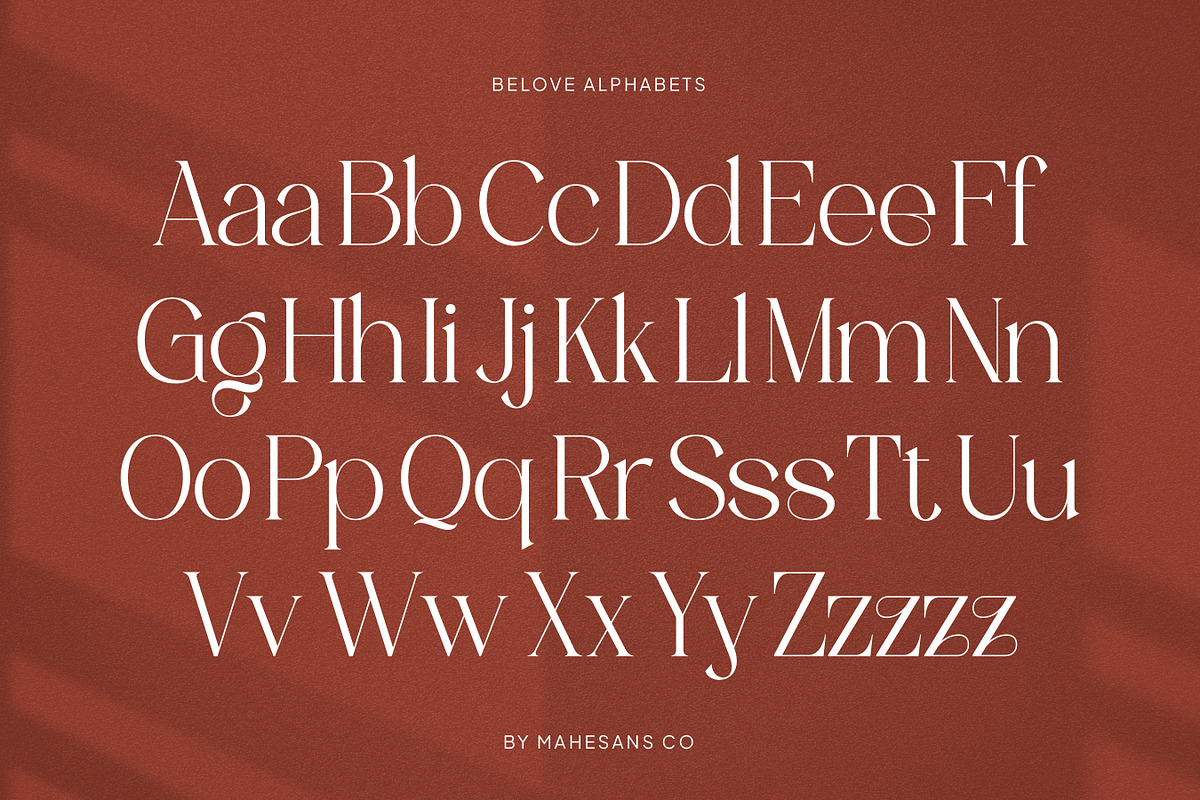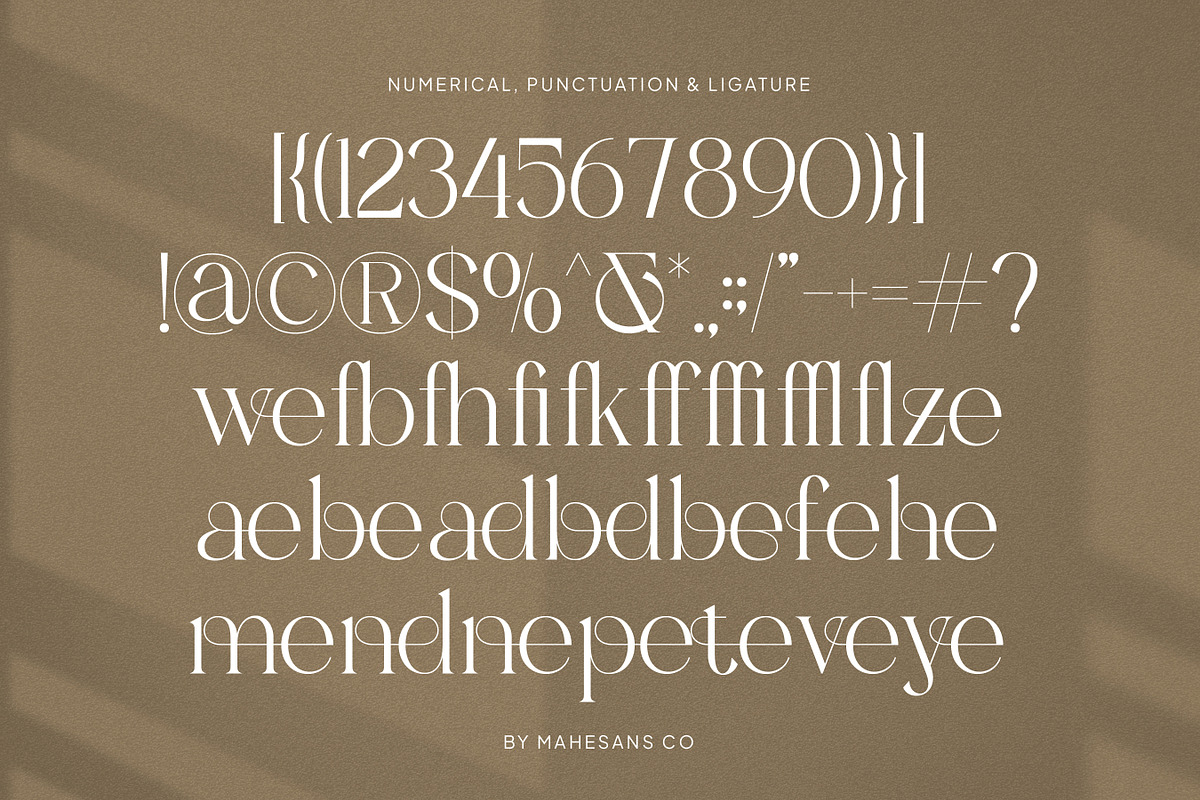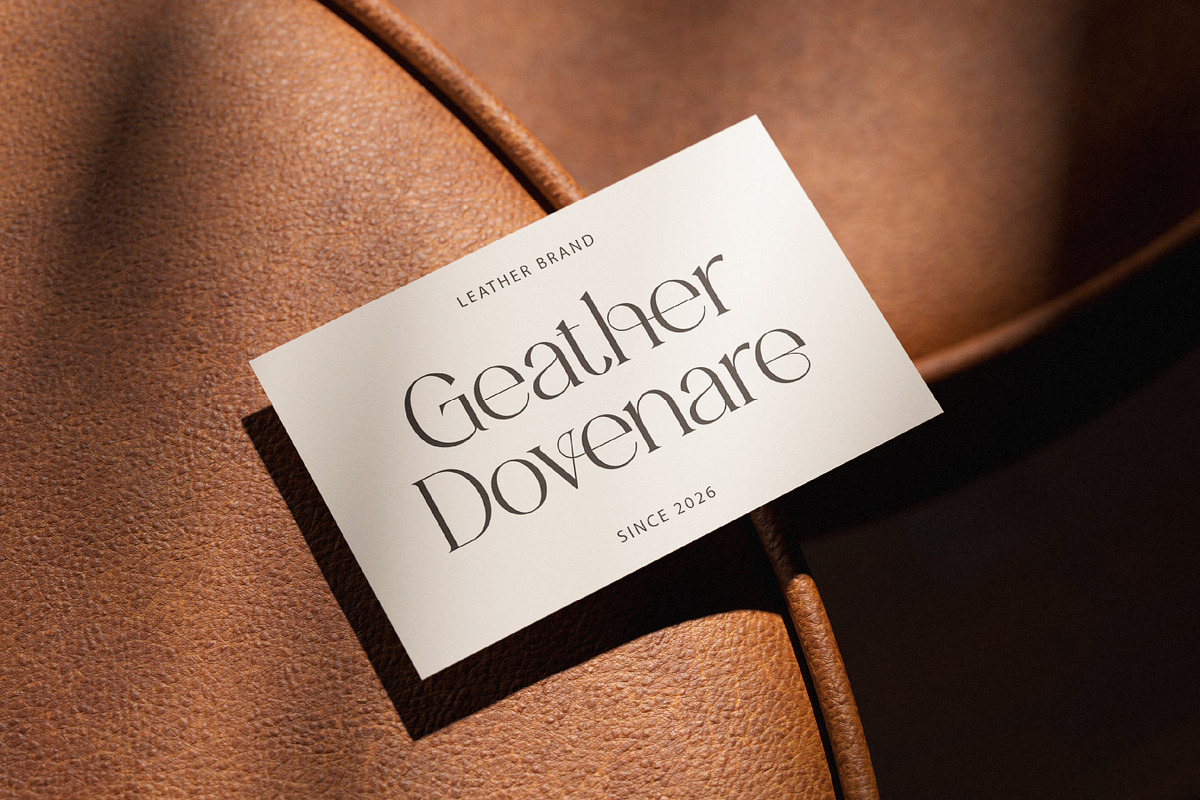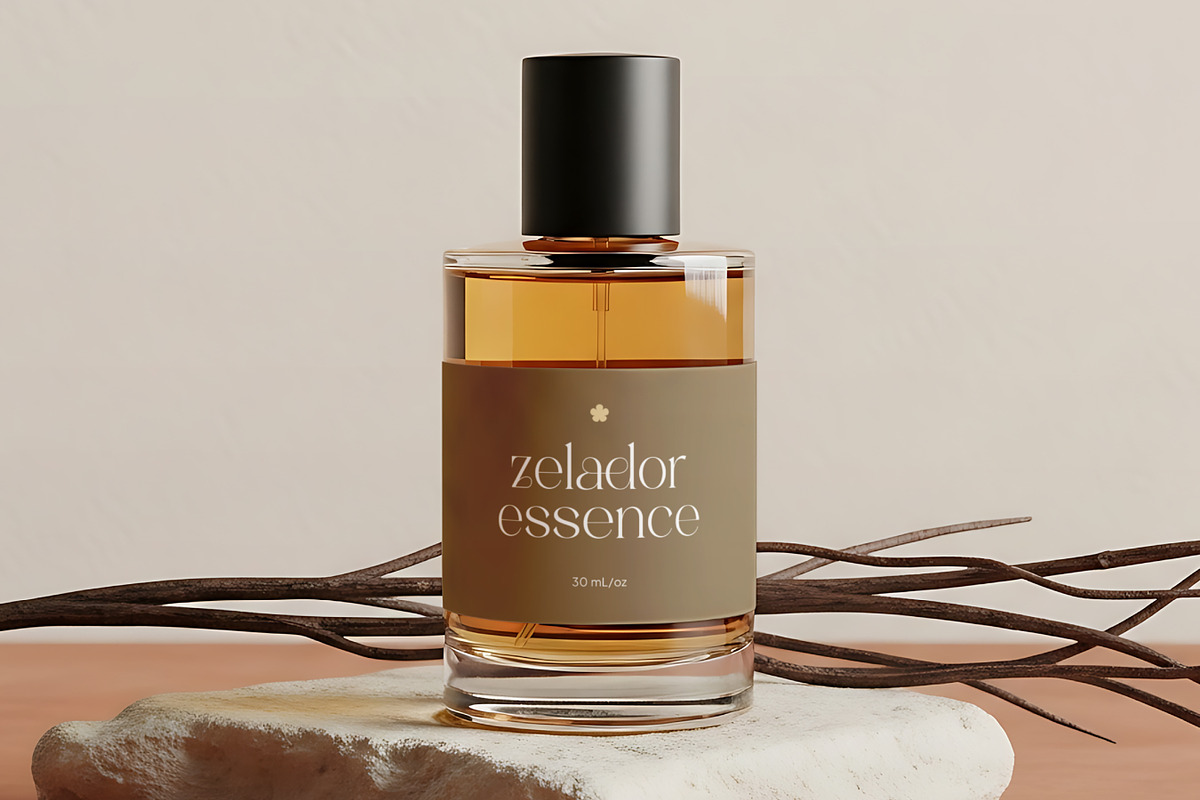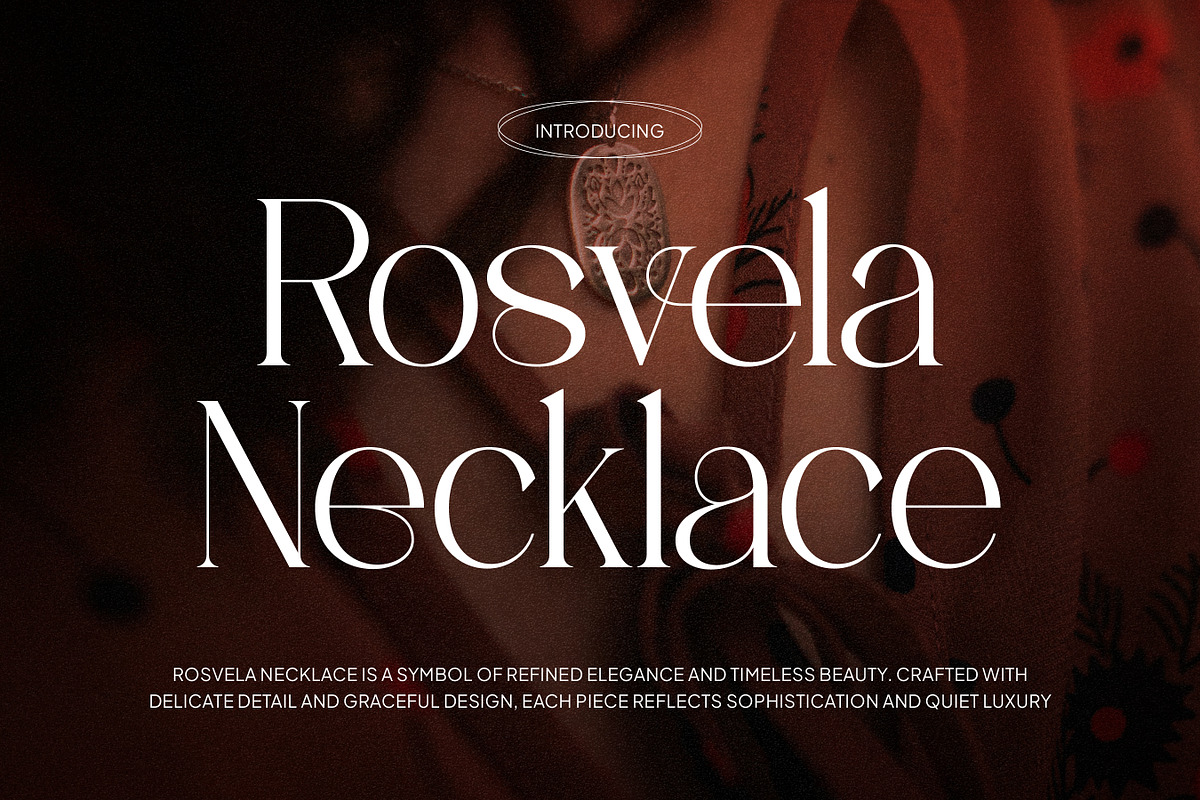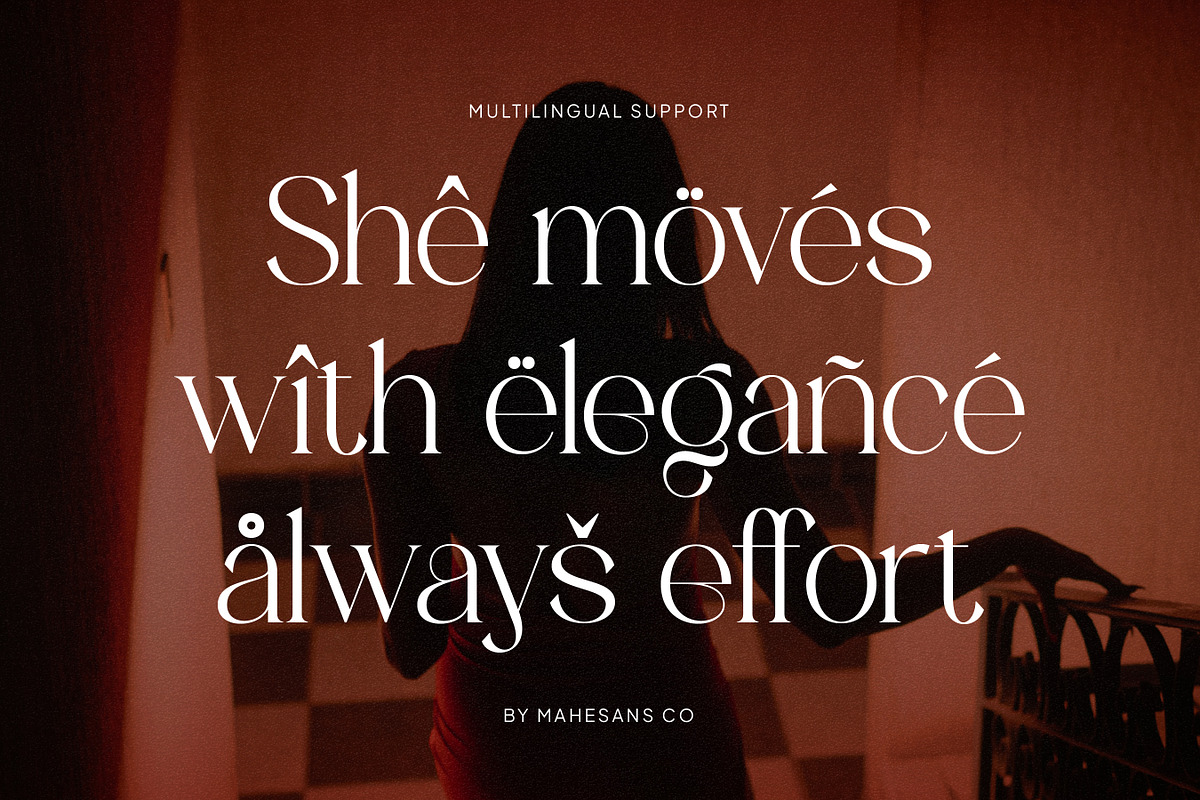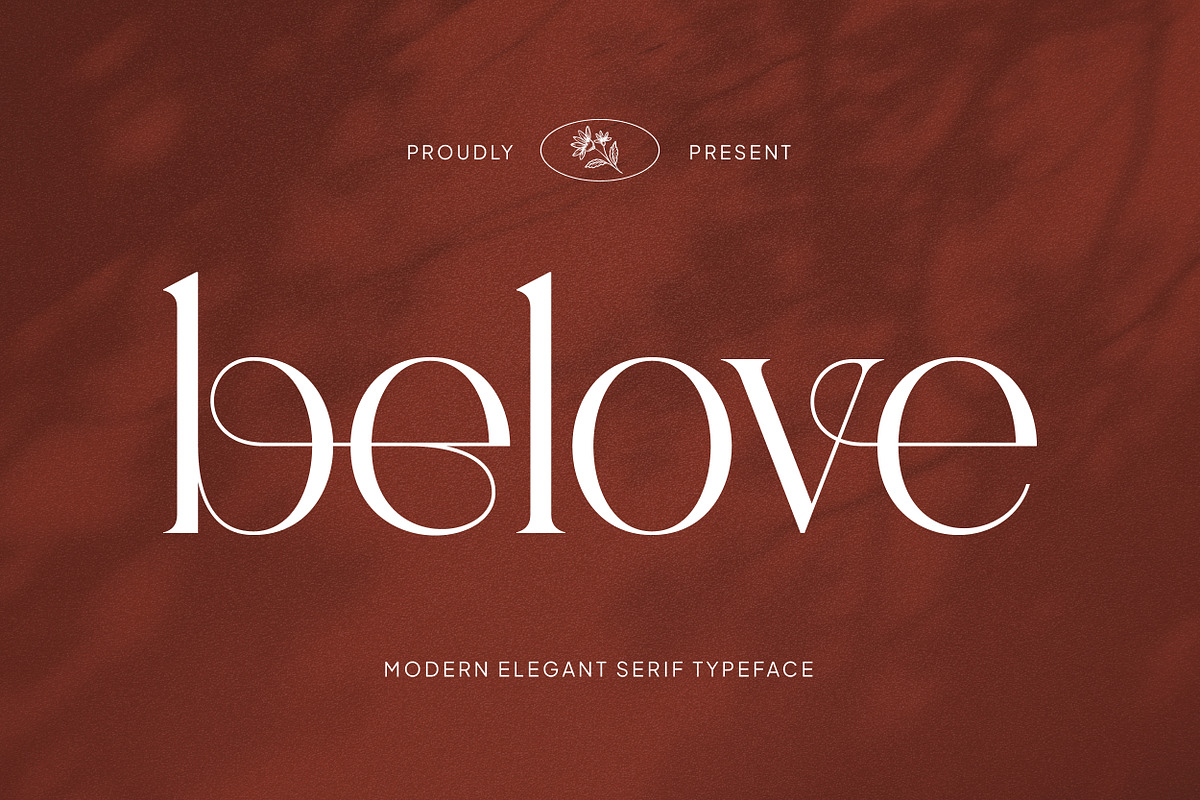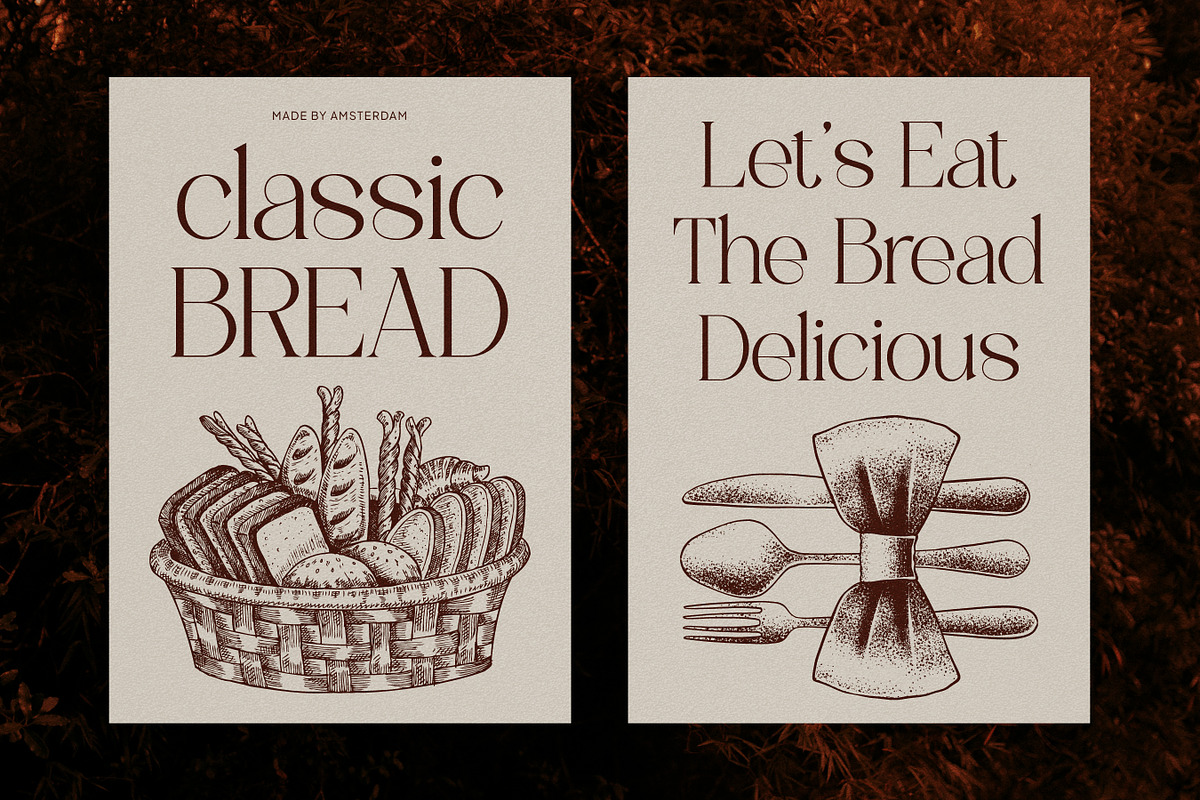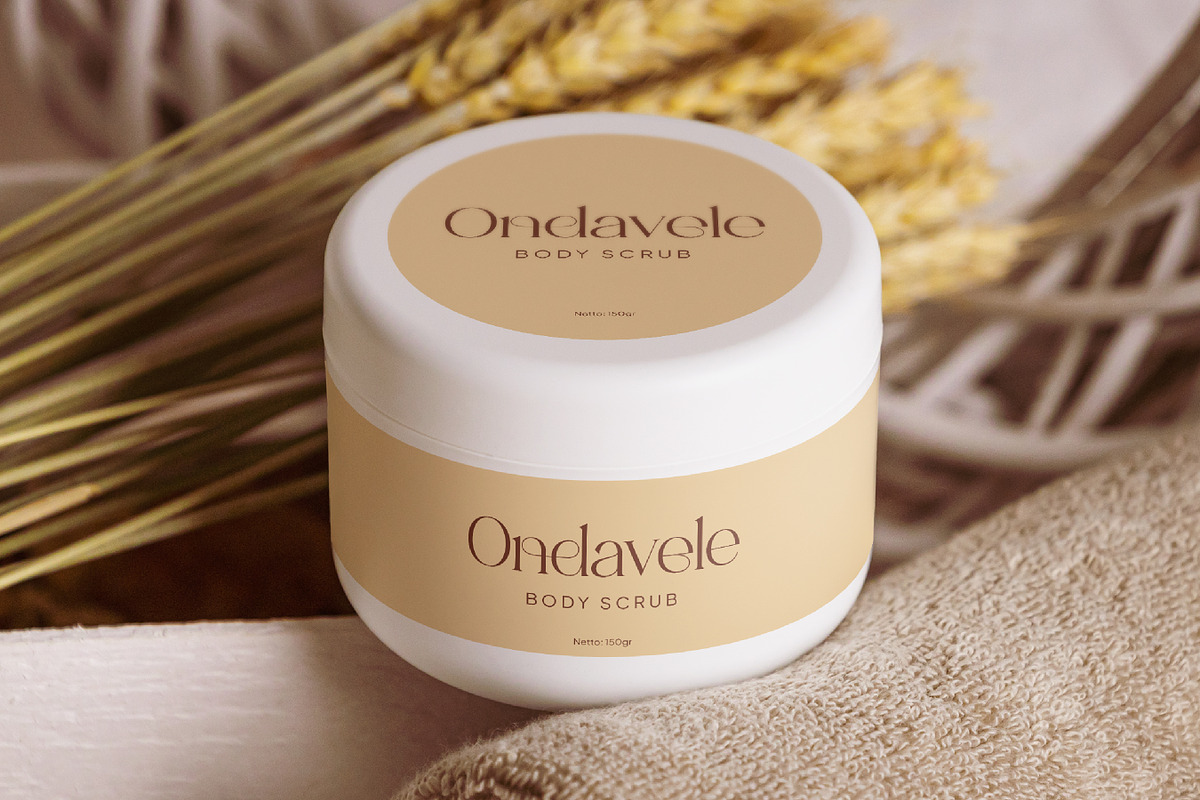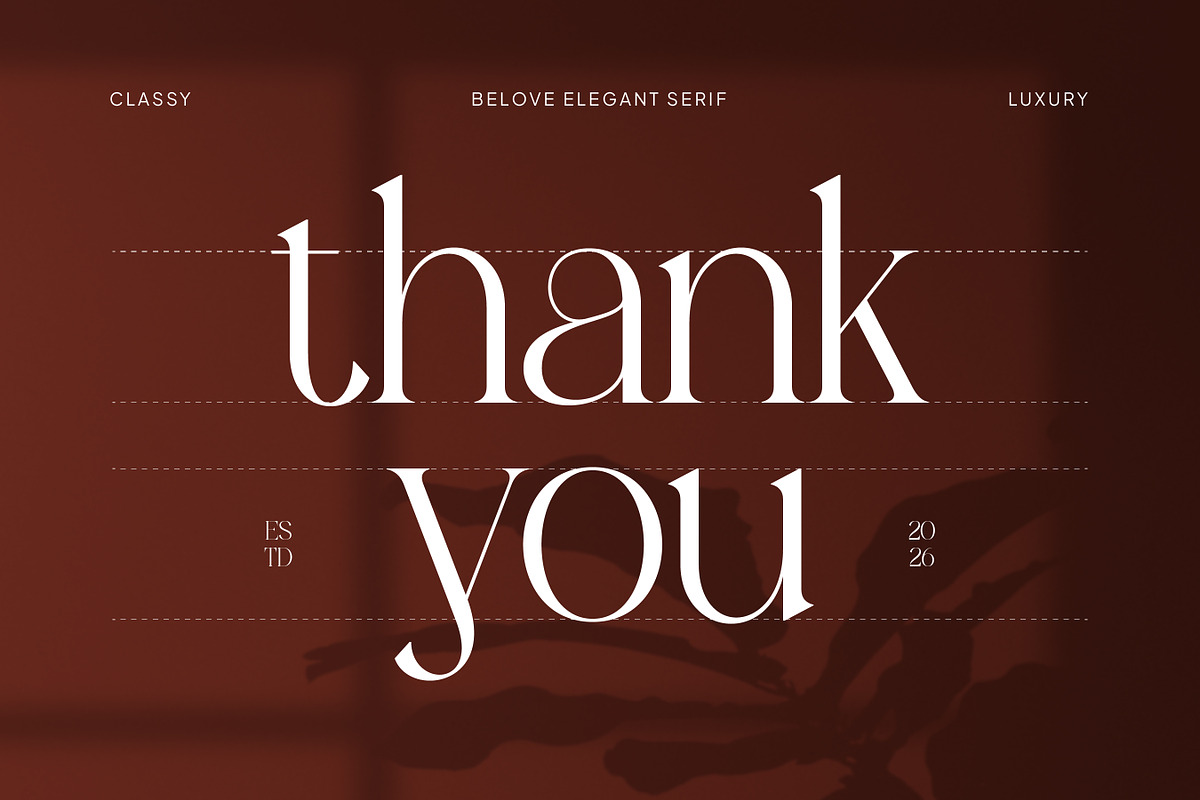
Belove – Modern Elegant Serif
Belove is a modern elegant serif typeface designed to bring refinement and sophistication to your creative work. With its high-contrast strokes, delicate curves, and stylish ligatures, Belove delivers a timeless yet contemporary aesthetic that feels both graceful and distinctive.
Carefully crafted to balance beauty and readability, this typeface shines in luxury branding, editorial layouts, fashion campaigns, wedding designs, and premium packaging. The unique ligatures add a subtle artistic touch, allowing your typography to stand out effortlessly.
Belove also includes multilingual support, making it a versatile choice for designers working across different languages and international projects.
Whether you're designing a brand identity, magazine headline, or elegant invitation, Belove adds a sense of charm, elegance, and modern sophistication to every composition.
- Luxury Branding
- Fashion & Beauty Projects
- Wedding Invitations
- Editorial & Magazine Design
- Logo & Packaging
- Social Media Graphics
- Elegant Quotes & Headlines
- Multilanguage